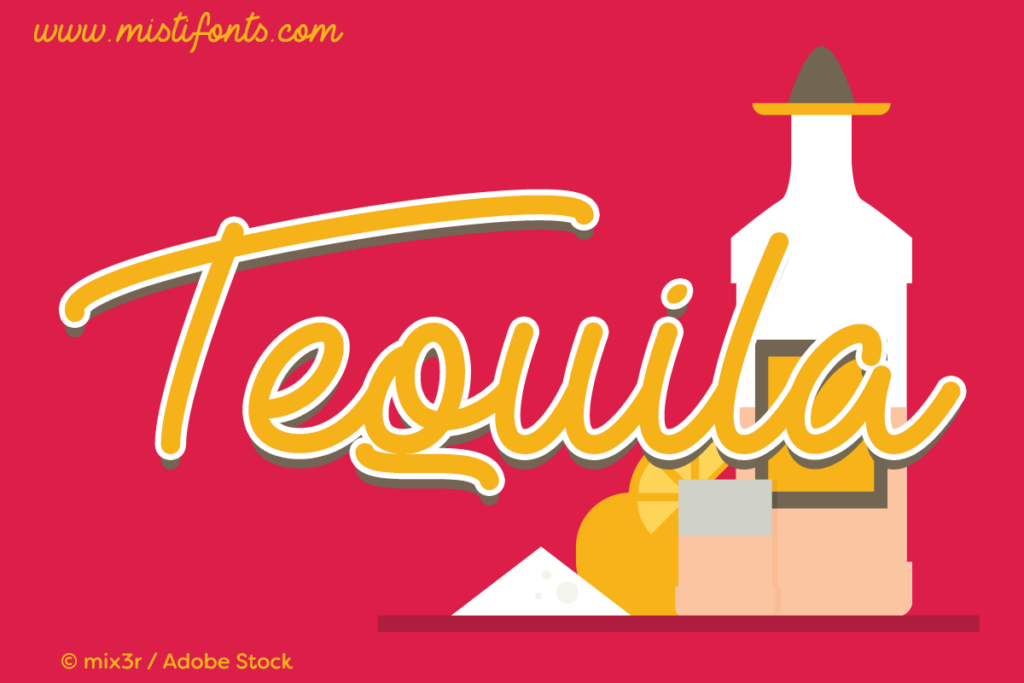
Lie to Me Font
Introduction Lie to Me Script Font! Lie to Me designed by Misti’s Fonts. Font script to make your text look beautiful. With a signature style that makes it look more natural. Ideal for your branding, handwritten quotes, logo, header, poster, apparel, packaging, business cards, etc.